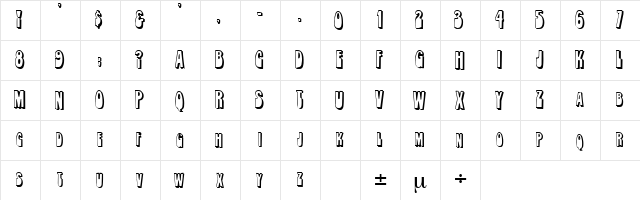
Orbit Shadow Regular
Design Context for Orbit Shadow Typeface
Orbit Shadow is built around its visual character rather than neutral utility — its distinctive forms are designed to make an impression at display sizes.
Font Pairing: Pair with a clean neutral sans-serif for body copy to let Orbit Shadow's character lead without overwhelming the composition.
Pro Tip: Treat Orbit Shadow as the centrepiece of your typographic hierarchy. One strong heading set in a decorative face can carry an entire layout.